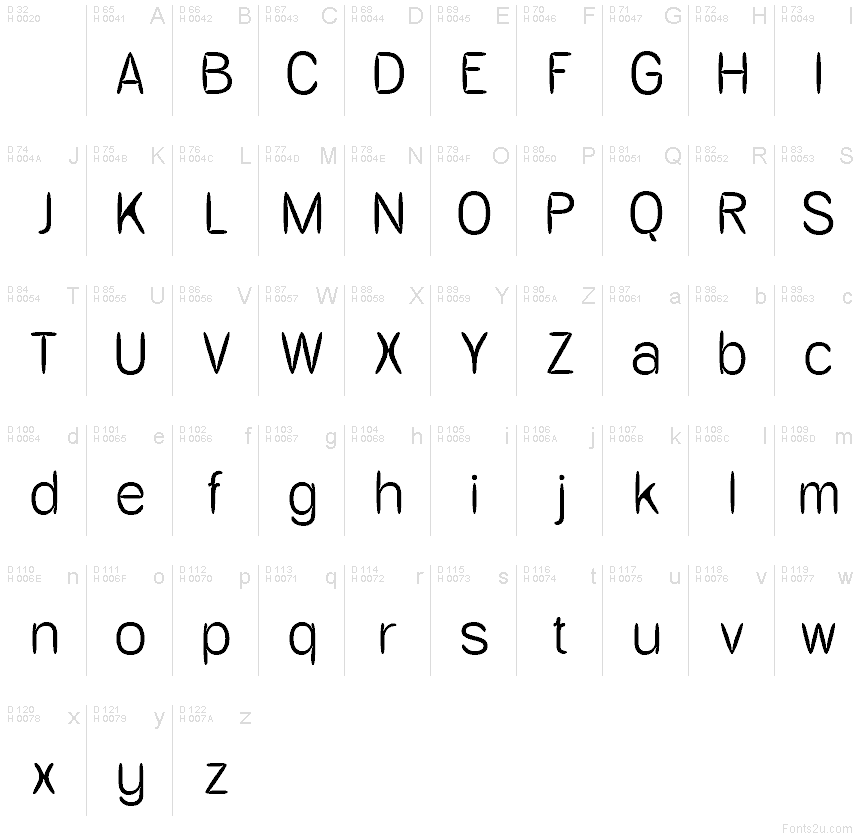
MalvionDrawn-Regular Demo
Malvion font is a contemporary geometric font by Craft Supply Co. Its modern and minimalistic design conveys a professional and clean look. The characters are structured to have the most consistent appearance possible combining proportion, shape, and spacing. The result is a neat set of characters that is visually pleasing with excellent readability.
Use this clean-looking typeface in branding designs, business cards, resumes and CVs to stand out professionally. It would also work great in magazine titles, headlines, interior design projects, signage systems/environment graphics or any other possible application one imagines for it! Enjoy this free minimalistic typeface today!